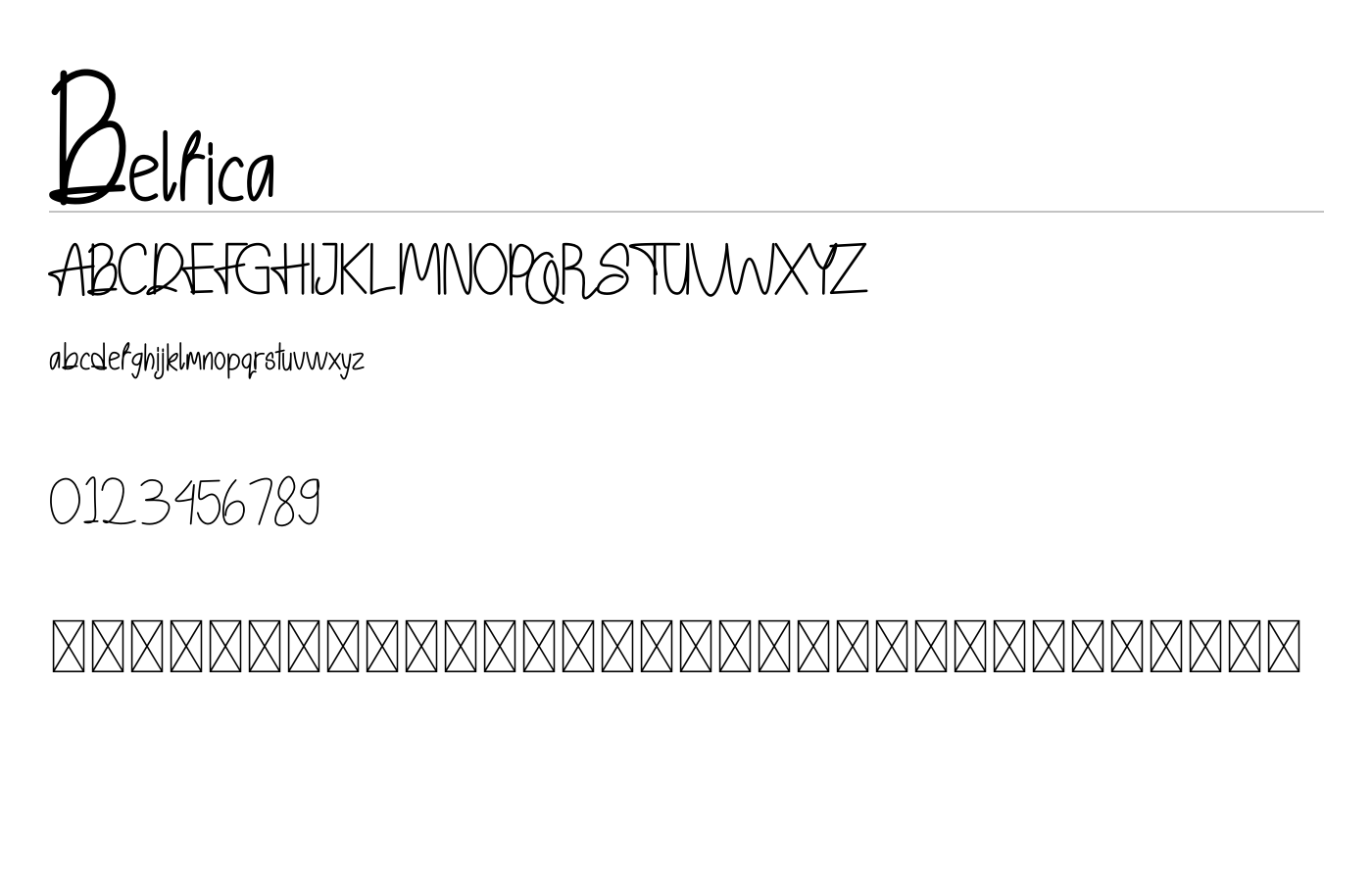
Belfica is a playful, hand-drawn sans serif font with a light weight and narrow width that gives it a quirky, casual feel. Its tall, thin letterforms and irregular strokes make it ideal for creative and informal designs, such as greeting cards, posters, or children's projects, where a personal and whimsical touch is desired. This font works best in headlines or short text settings that aim to convey friendliness and originality.
Belfica Font
About Belfica Font